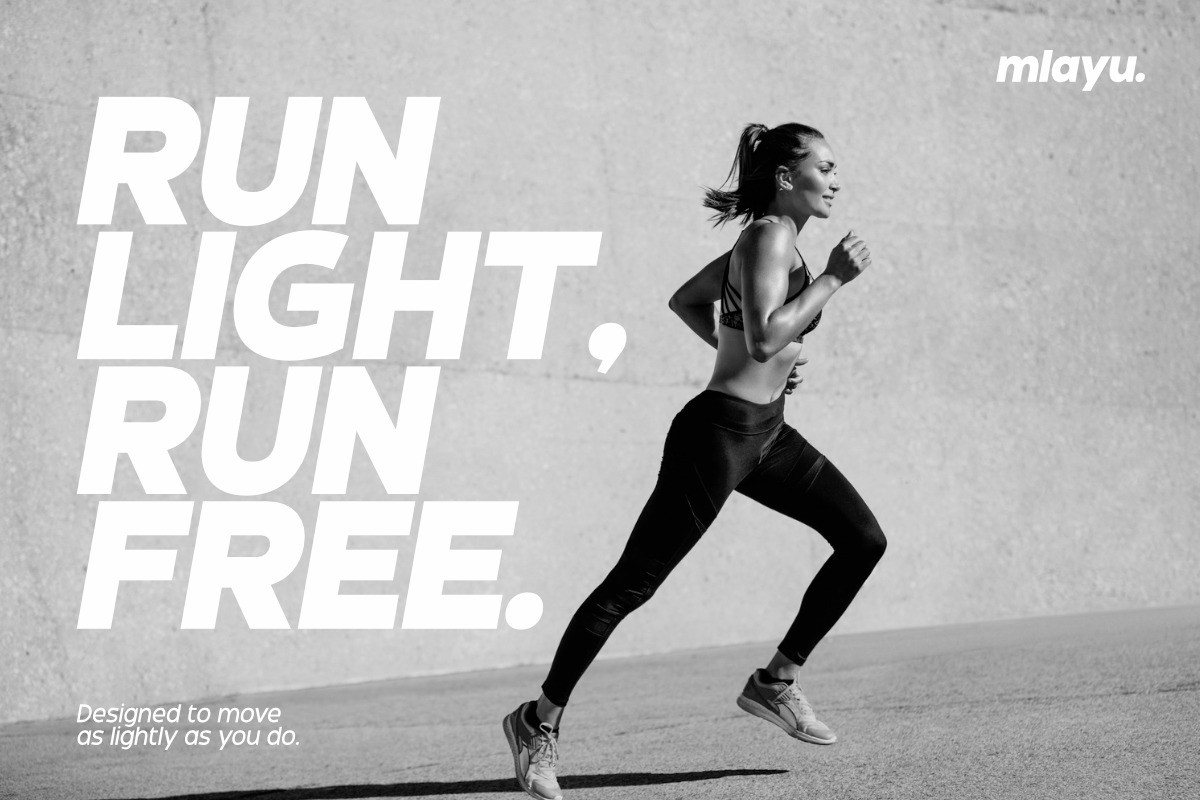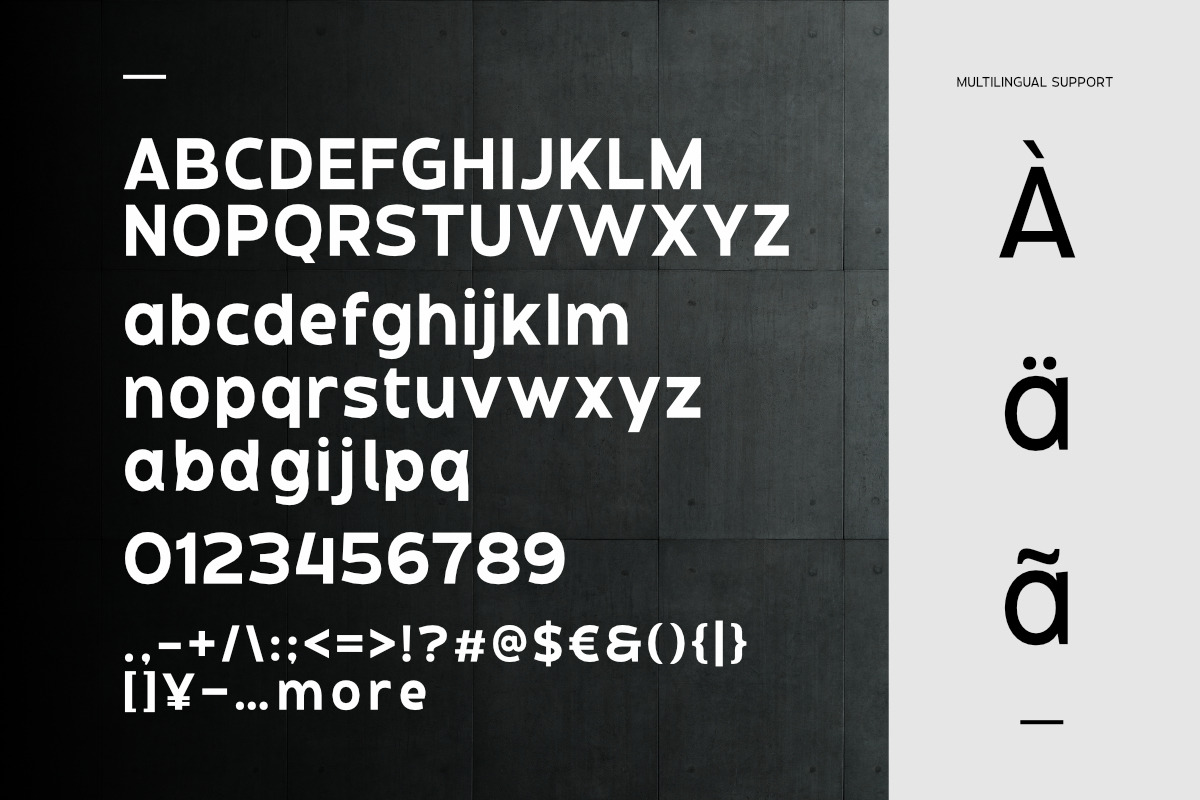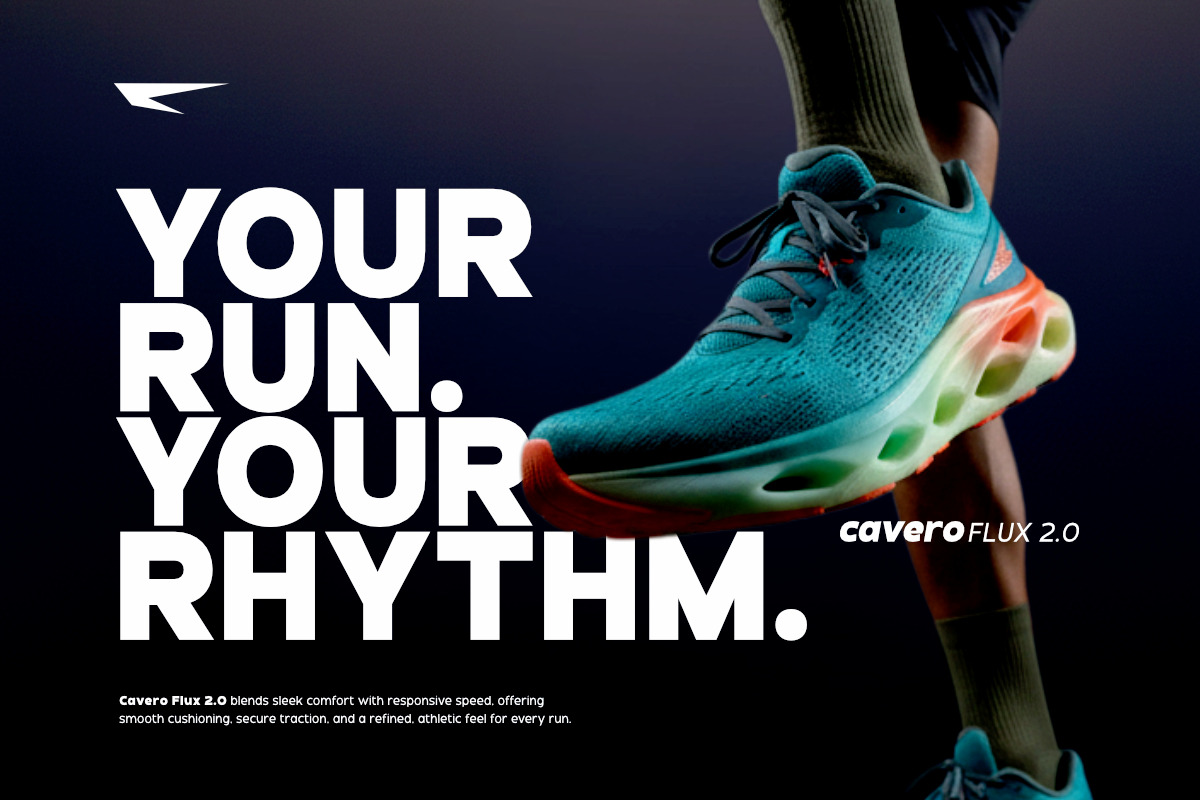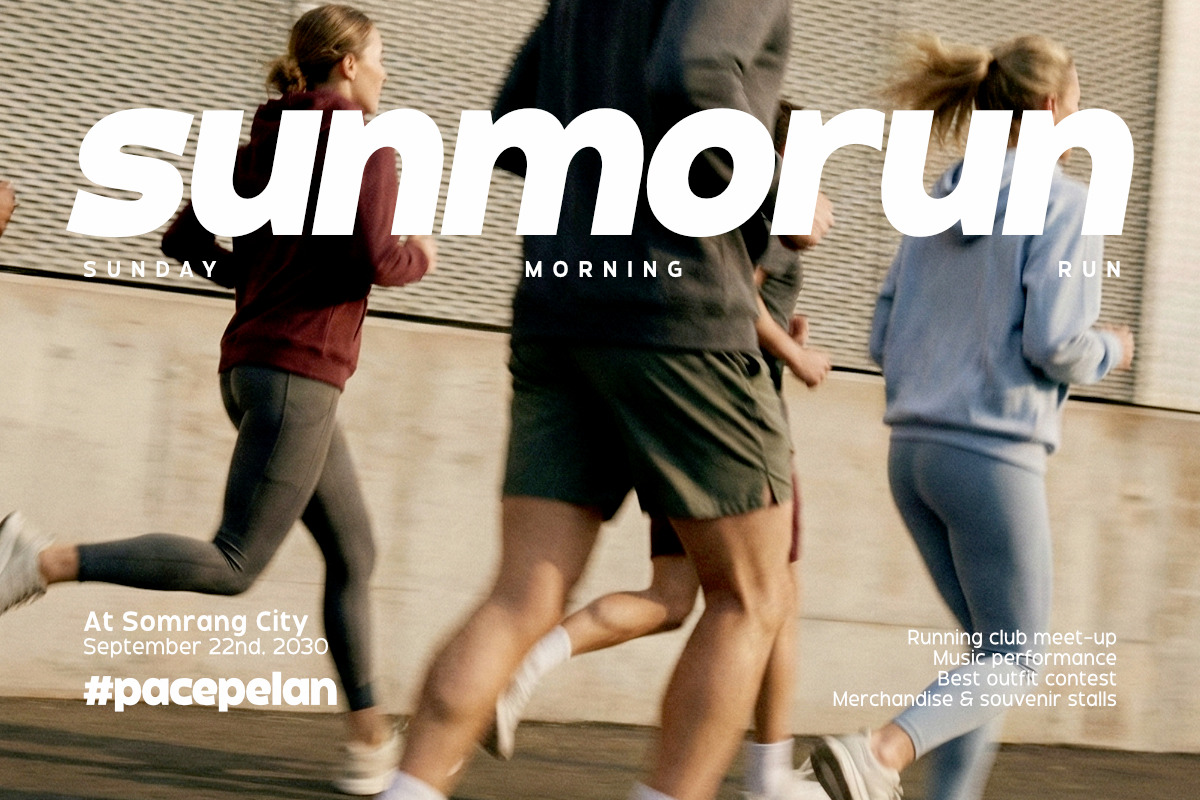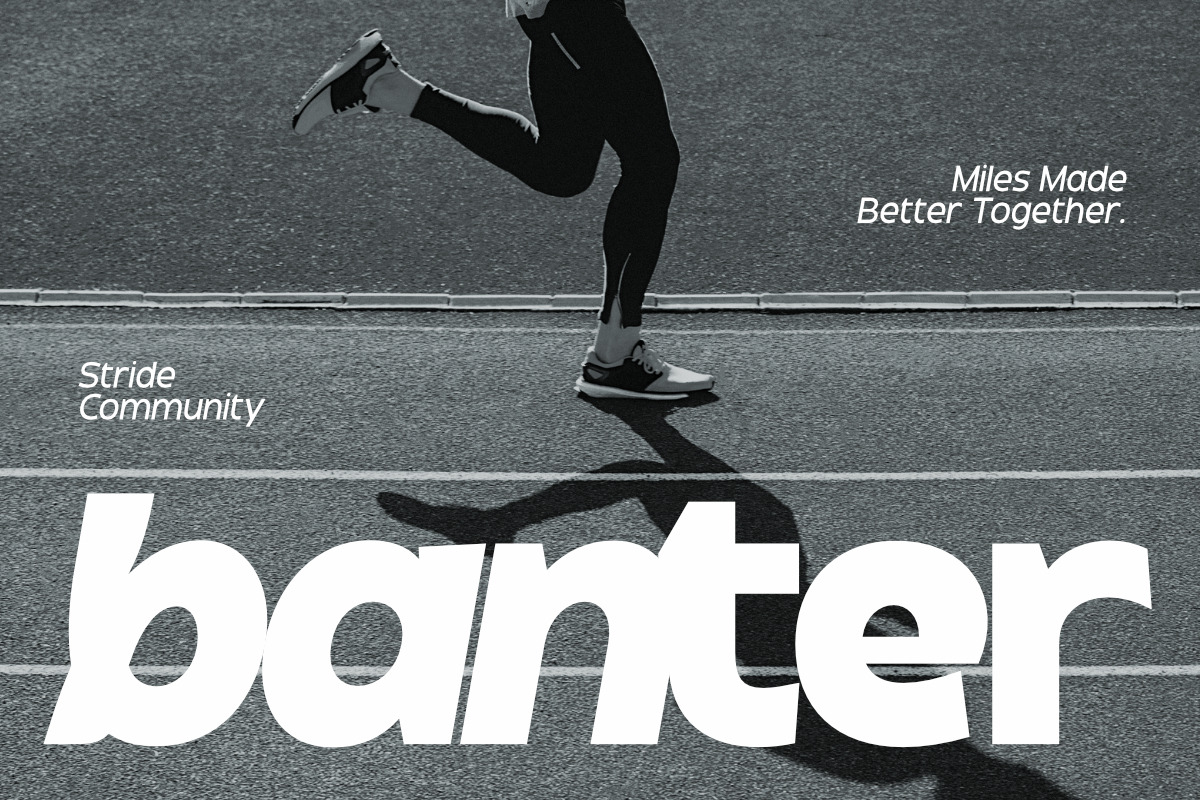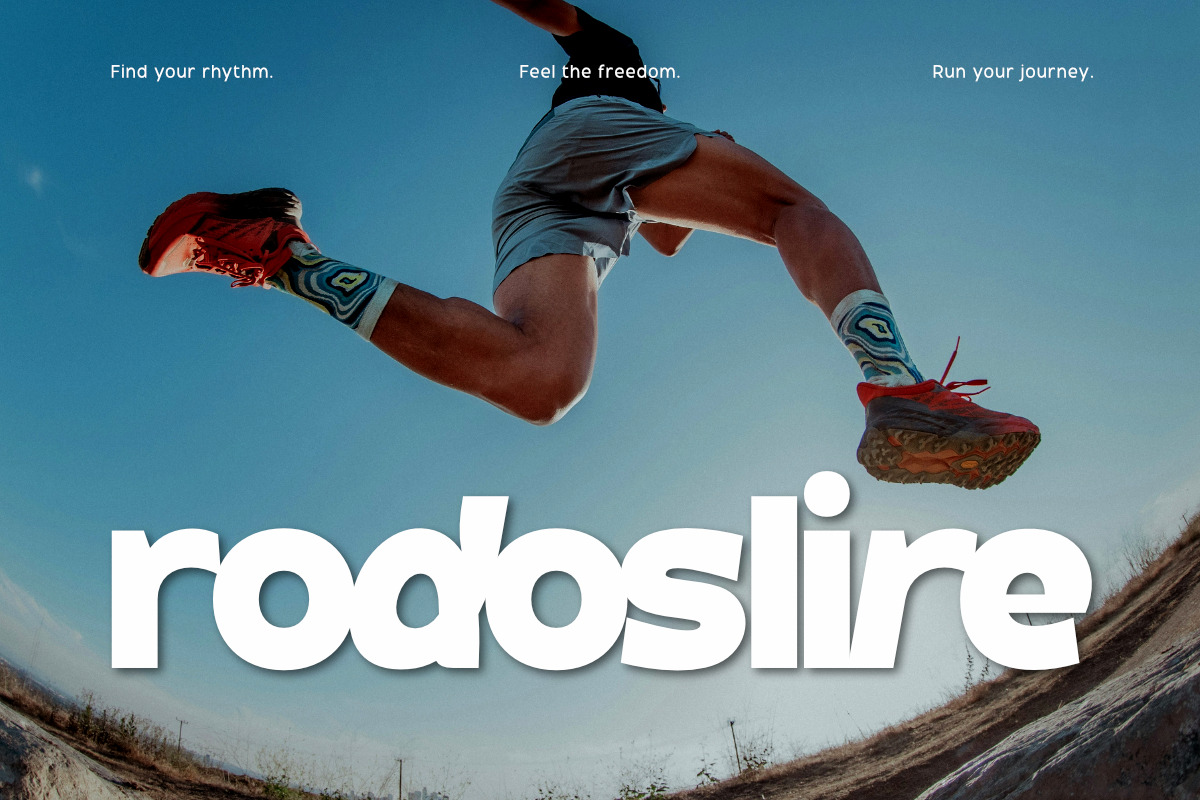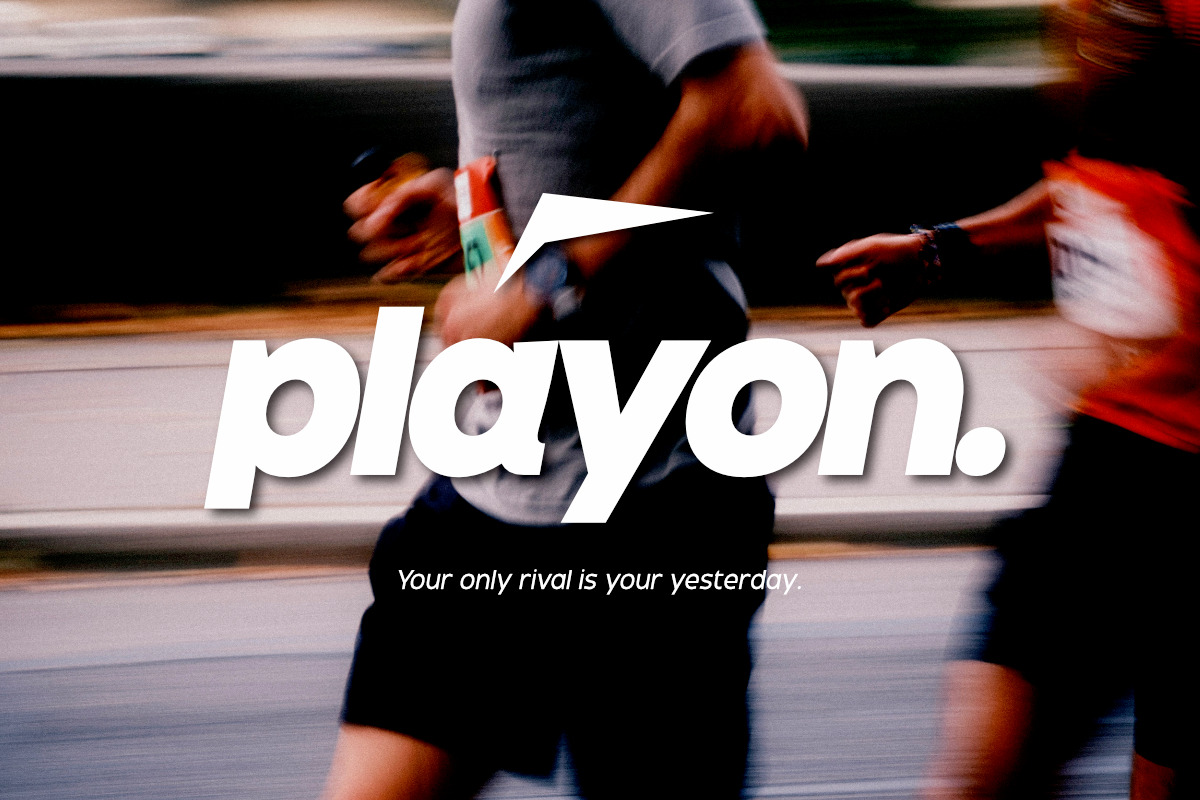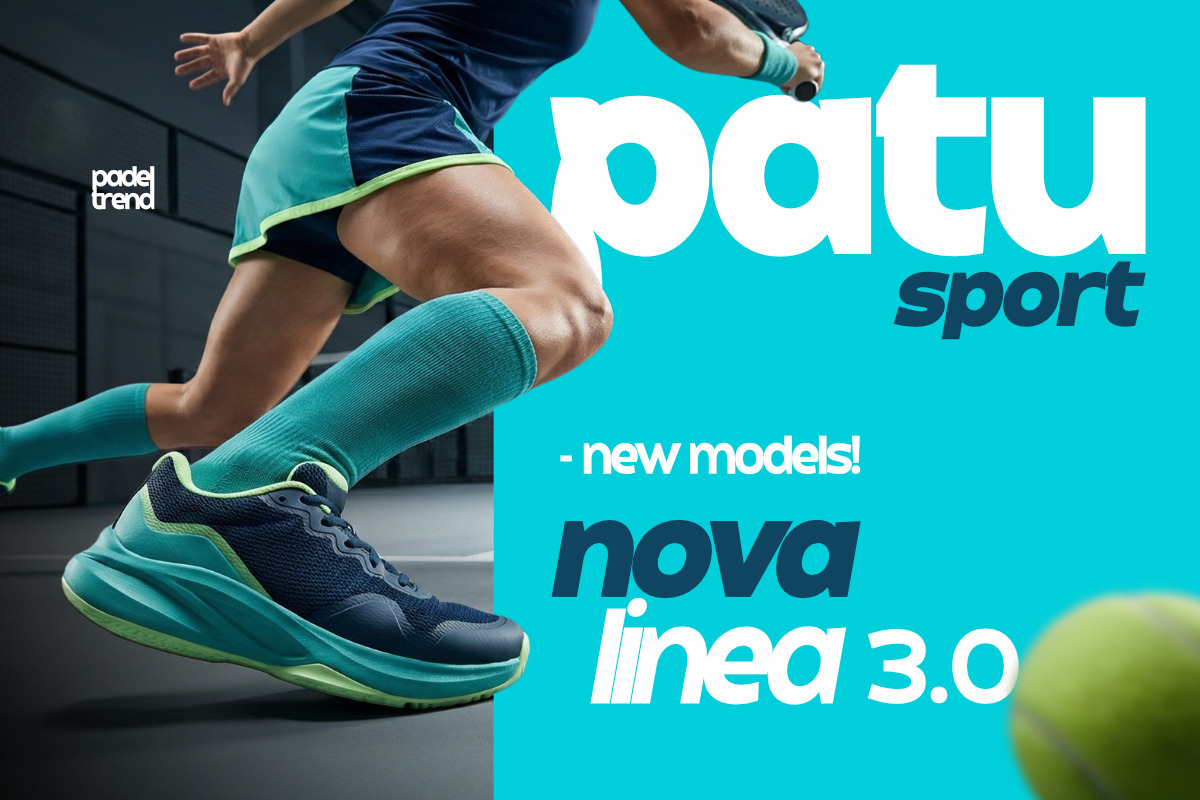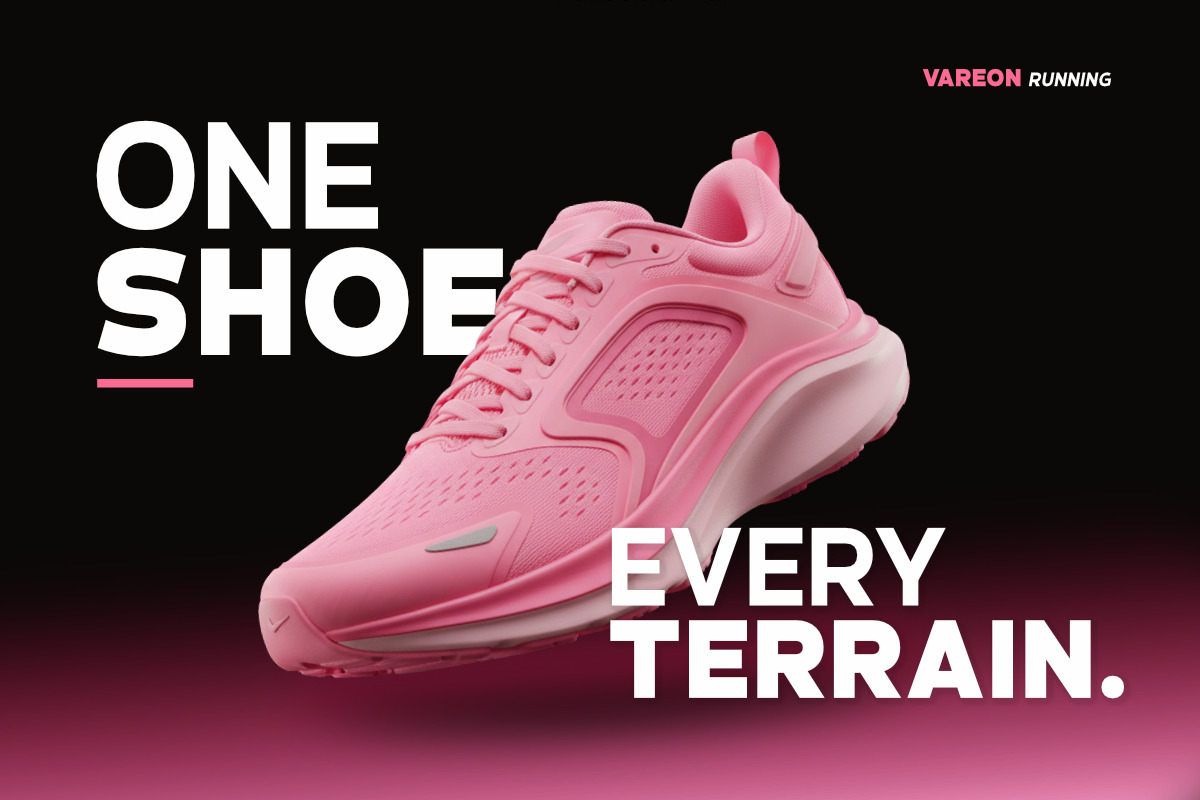
Laripagi - Sans Sport Display
Laripagi is a modern Sans Serif Display typeface specifically crafted with bold, dynamic, and geometric letterforms for sports-driven visual identities. Featuring distinct rounded corners and wide proportions, each character delivers a powerful sense of speed, power, and momentum.
The typeface smartly merges structural minimalism with high visual impact, resulting in a clean, distinctive, and confident appearance. Its balanced structure ensures superior readability even at large sizes, making it a premium choice for striking headlines.
Ideal for projects requiring high energy and a modern aesthetic, such as running posters, activewear and apparel campaigns, athletic branding, logos, social media graphics, and sports promotional materials. Laripagi elevates your project into a striking and memorable visual statement.
All glyphs and Feature
Multilingual Support: Fully supports 85+ languages, including: Afrikaans, Albanian, Asu, Basque, Bemba, Bena, Breton, Catalan, Chiga, Cornish, Croatian, Czech, Danish, Dutch, Embu, English, Esperanto, Estonian, Filipino, Finnish, French, Friulian, Galician, Gusii, Hungarian, Indonesian, Irish, Italian, Kabuverdianu, Kalenjin, Kamba, Kikuyu, Kinyarwanda, Latvian, Lithuanian, Lower Sorbian, Luo, Luxembourgish, Luyia, Machame, Makhuwa-Meetto, Makonde, Malagasy, Maltese, Manx, Meru, Morisyen, North Ndebele, Norwegian Bokmål, Norwegian Nynorsk, Nyankole, Oromo, Polish, Portuguese, Quechua, Romanian, Romansh, Rombo, Rundi, Rwa, Samburu, Sango, Sangu, Scottish Gaelic, Sena, Serbian, Shambala, Shona, Slovak, Slovenian, Soga, Somali, Spanish, Swahili, Swedish, Swiss German, Taita, Teso, Turkish, Upper Sorbian, Uzbek (Latin), Volapük, Vunjo, Walser, Zulu.